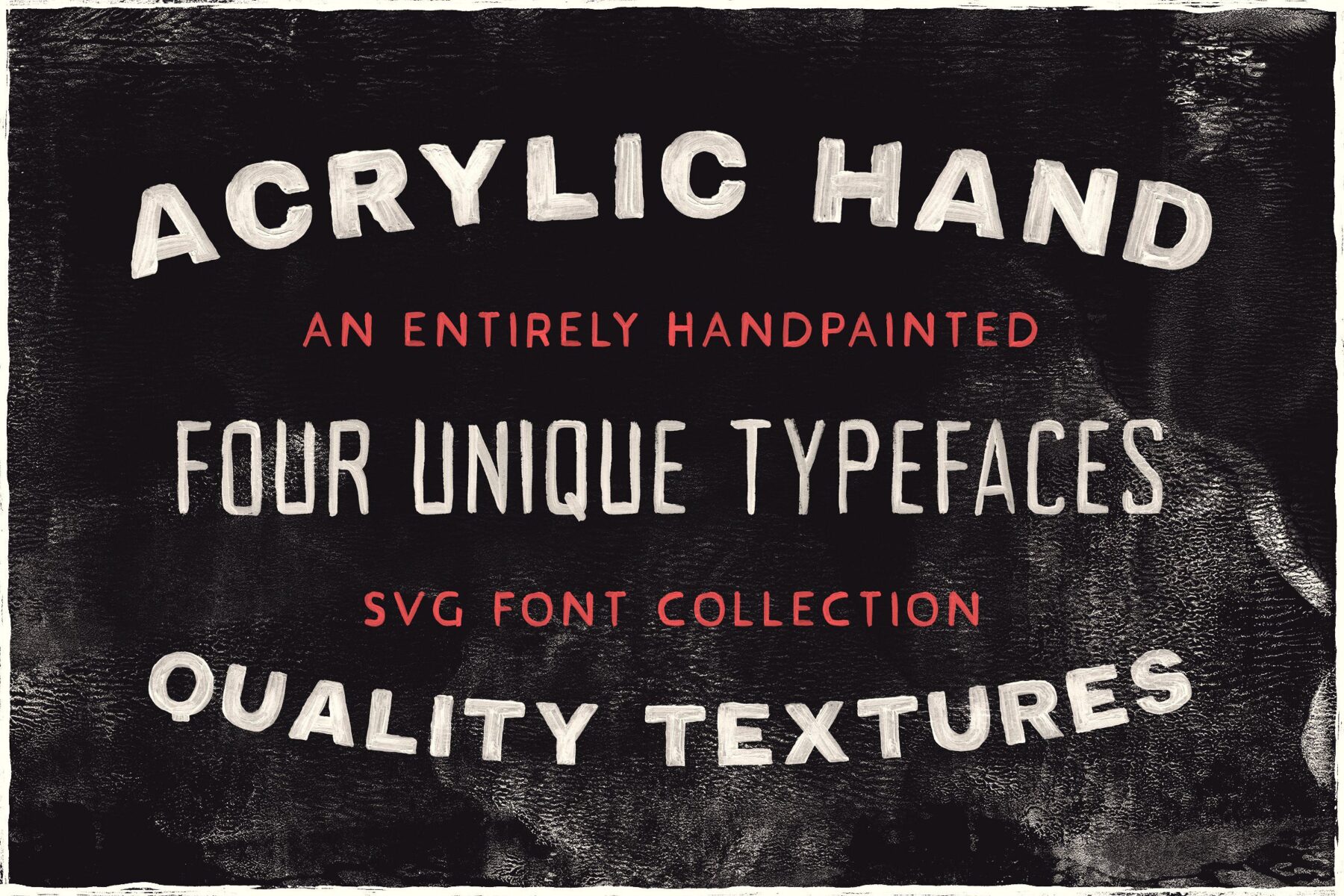
Acrylic Hand – Handpainted SVG Font Collection
The Acrylic Hand Font Collection includes four SVG fonts with an entirely hand painted, multilingual glyph range featuring realistic and high-quality textures throughout. The textures are exactly as they appear with no extra work required!. What the heck are SVG Fonts?! SVG is an entirely new font format that functions similarly to standard fonts. The big difference is that this new format allows font designers to incorporate as much detail as we wish into our creations by using high-resolution bitmap images as opposed to vector. Please Note: Opentype SVG Fonts require Photoshop CC 2017 or Illustrator CC 2018 (or newer). TTF fonts are included and these work universally (they’re just not as cool looking). With new technology comes new questions, for which I am more than happy to help! Please do not hesitate to reach out.